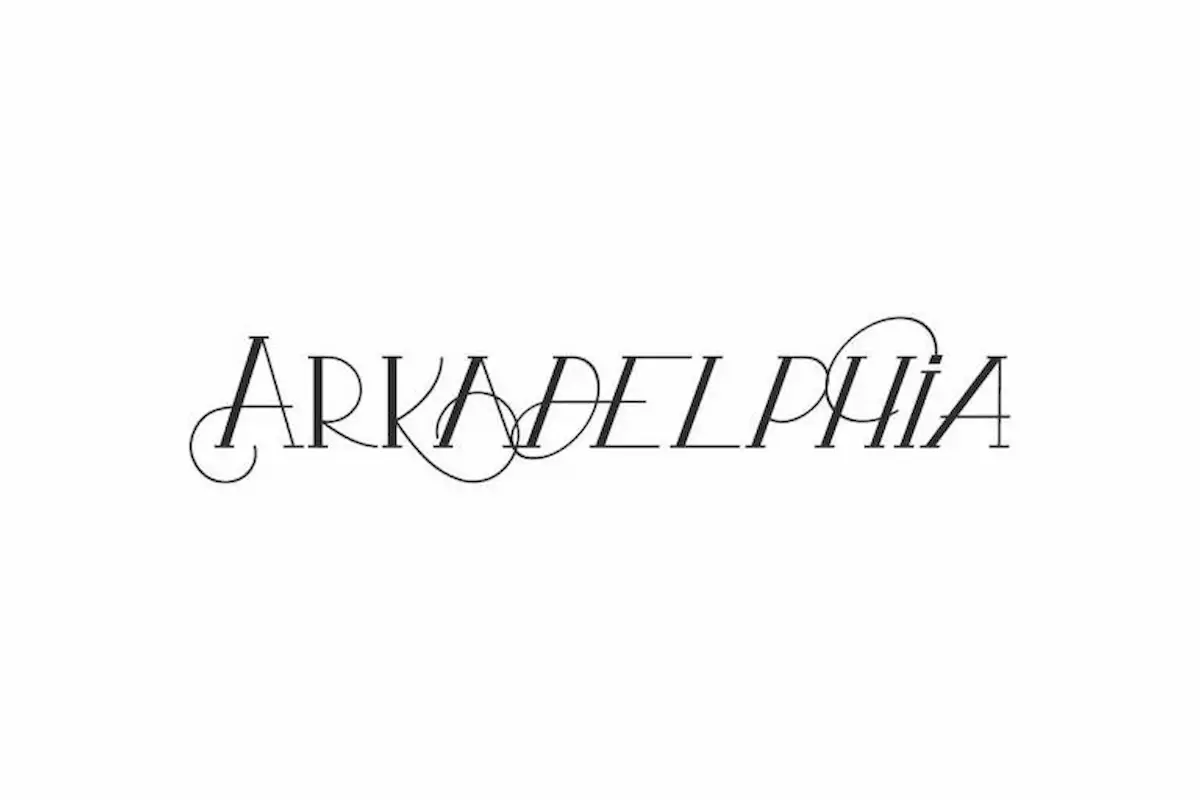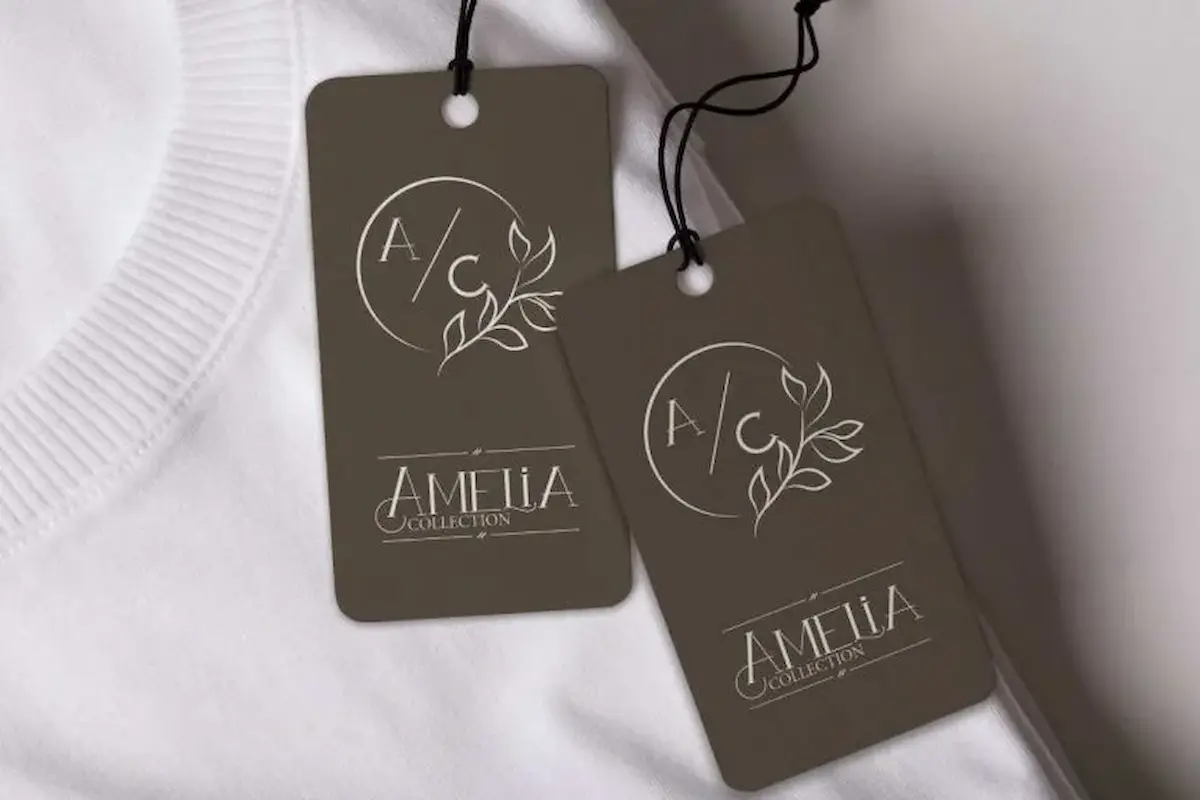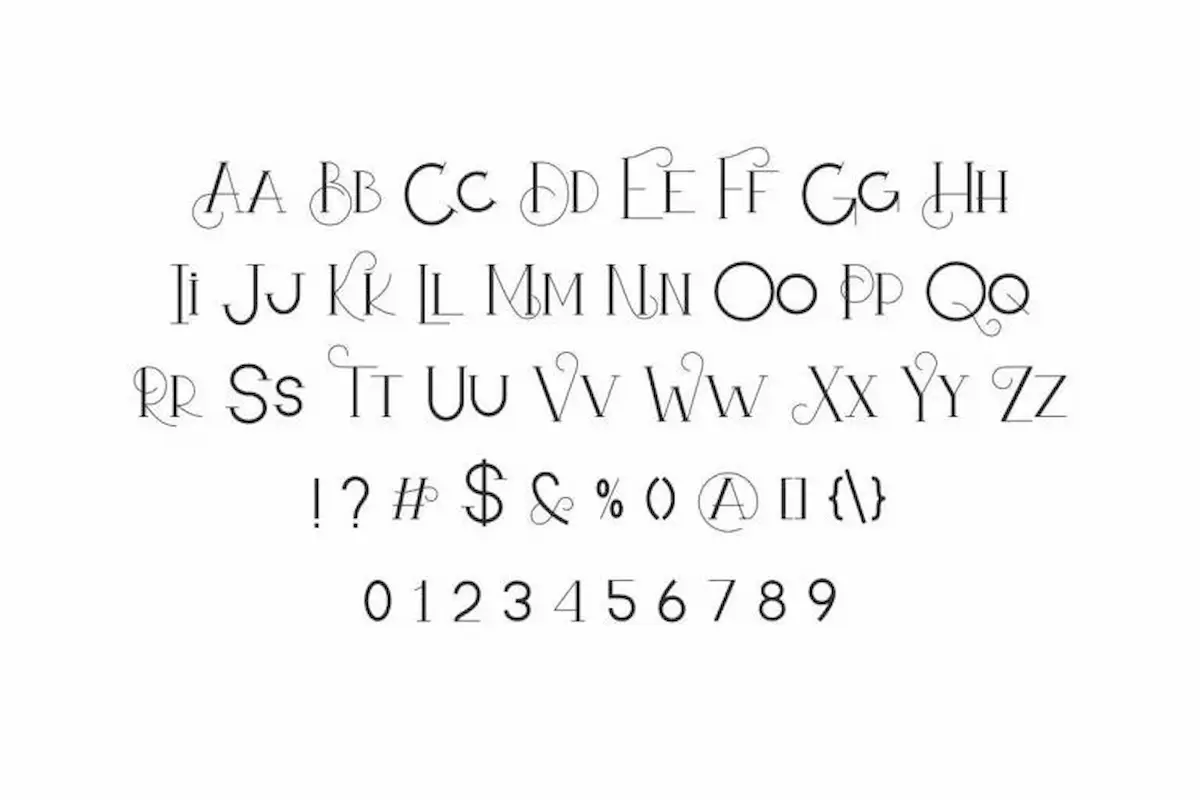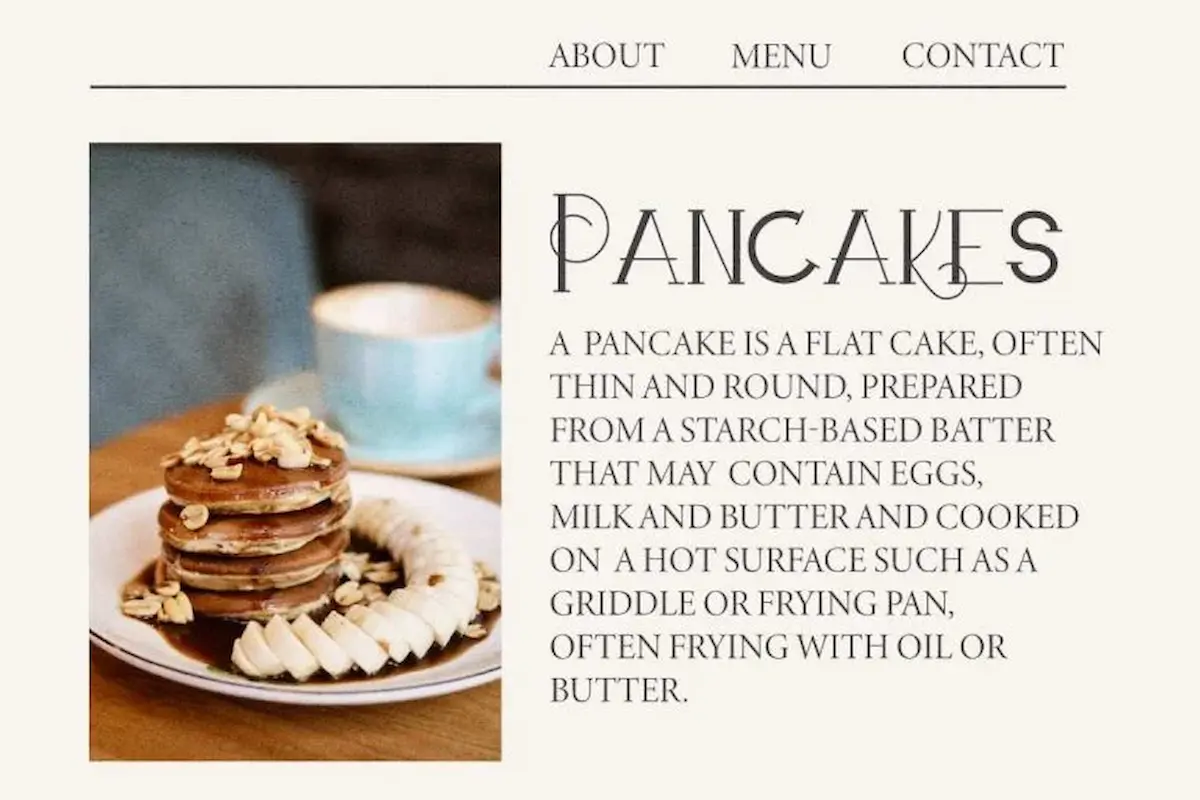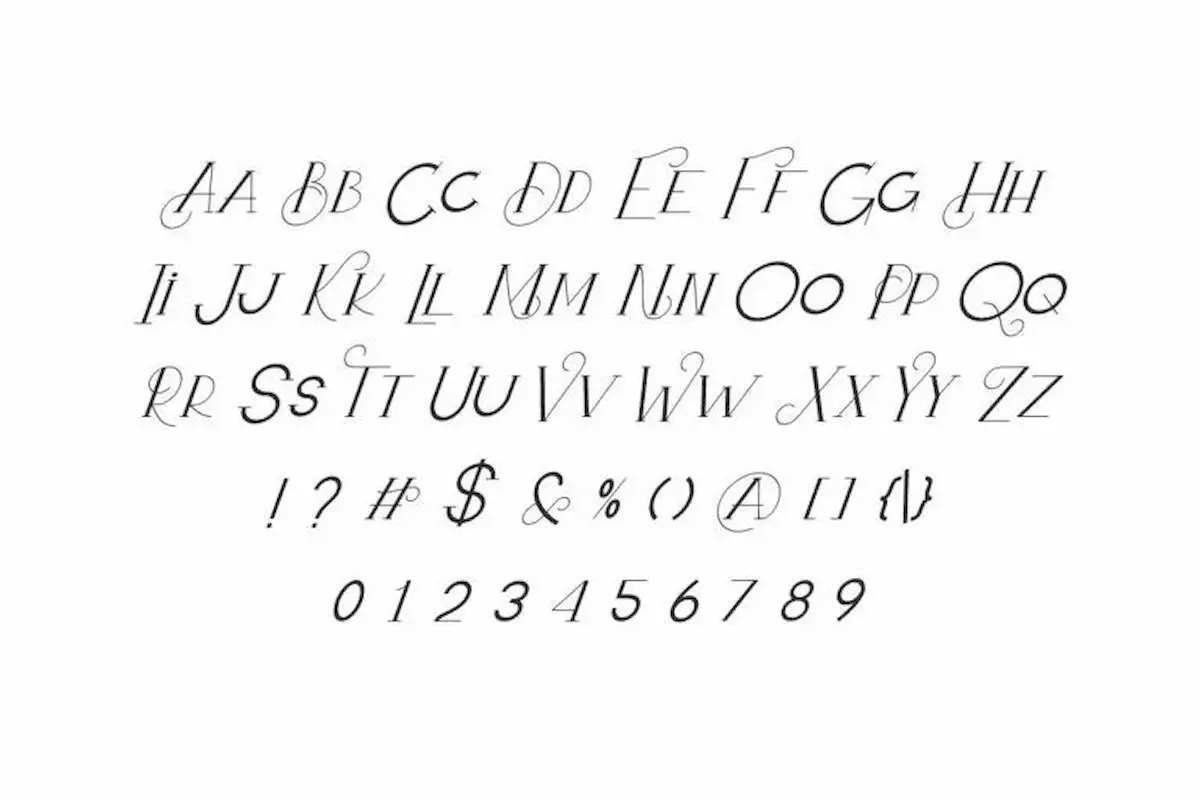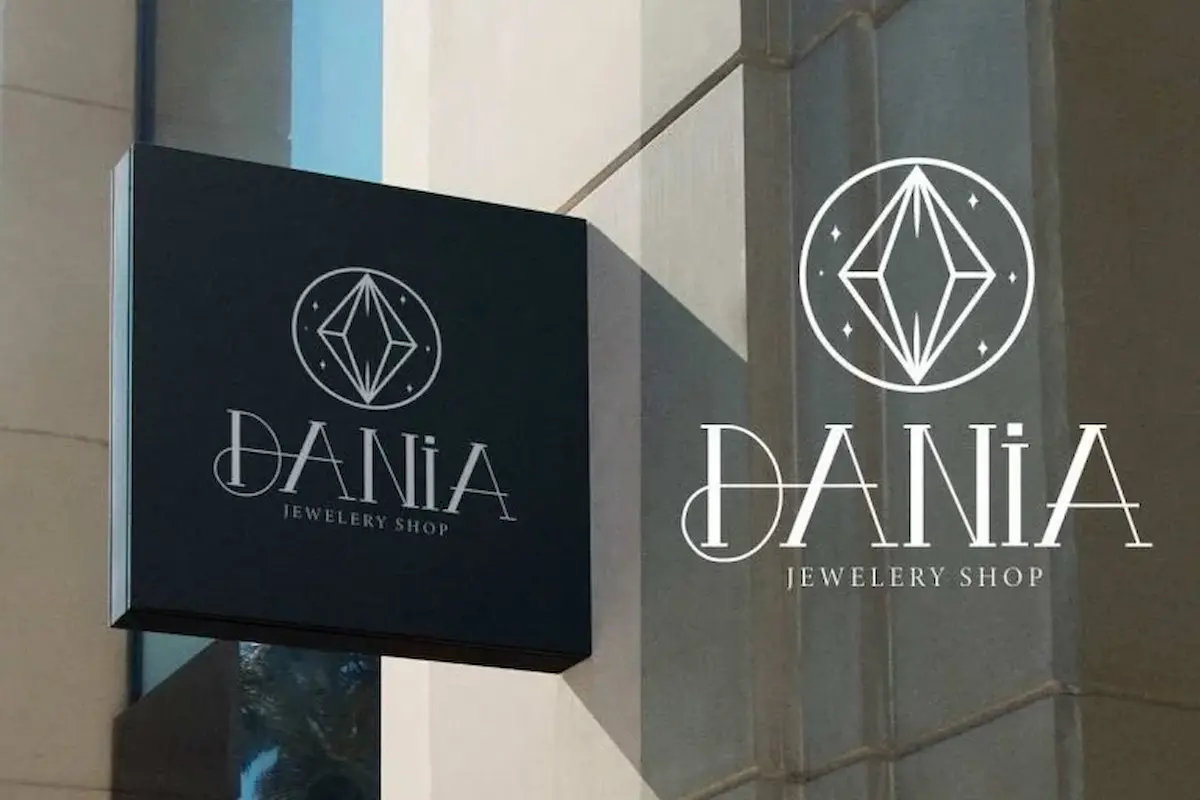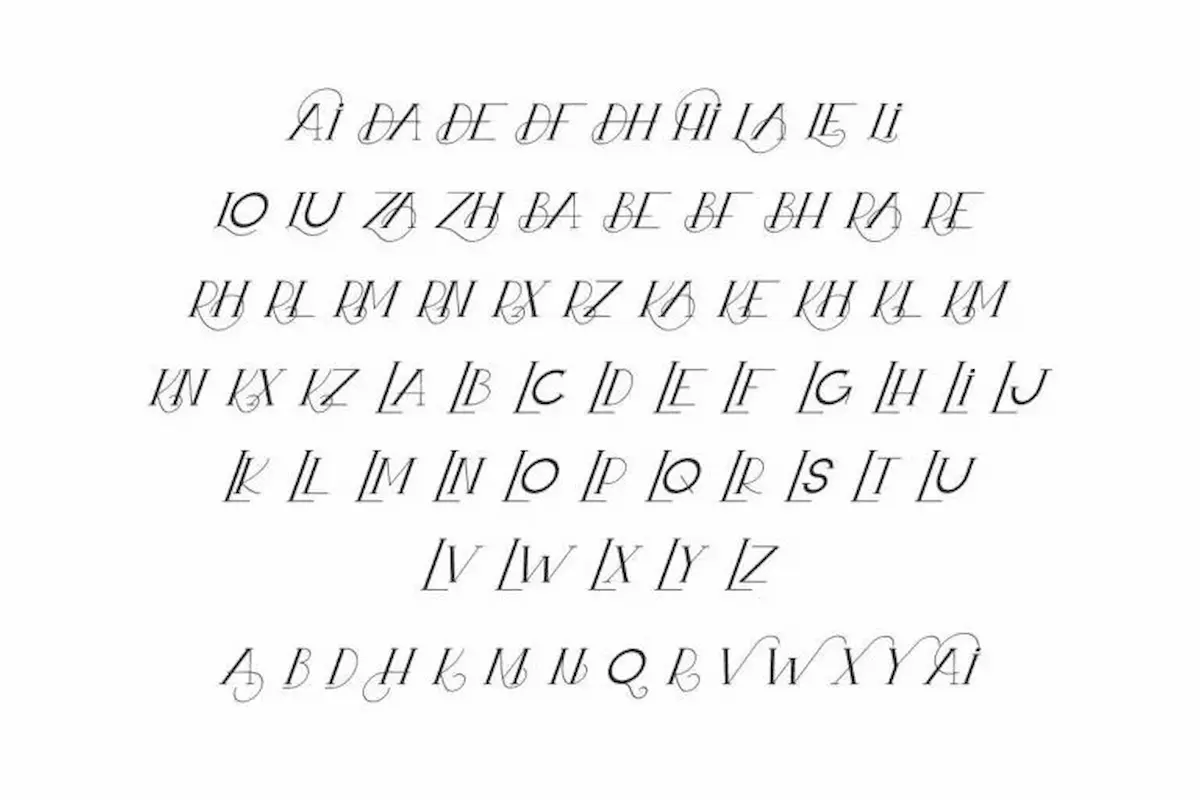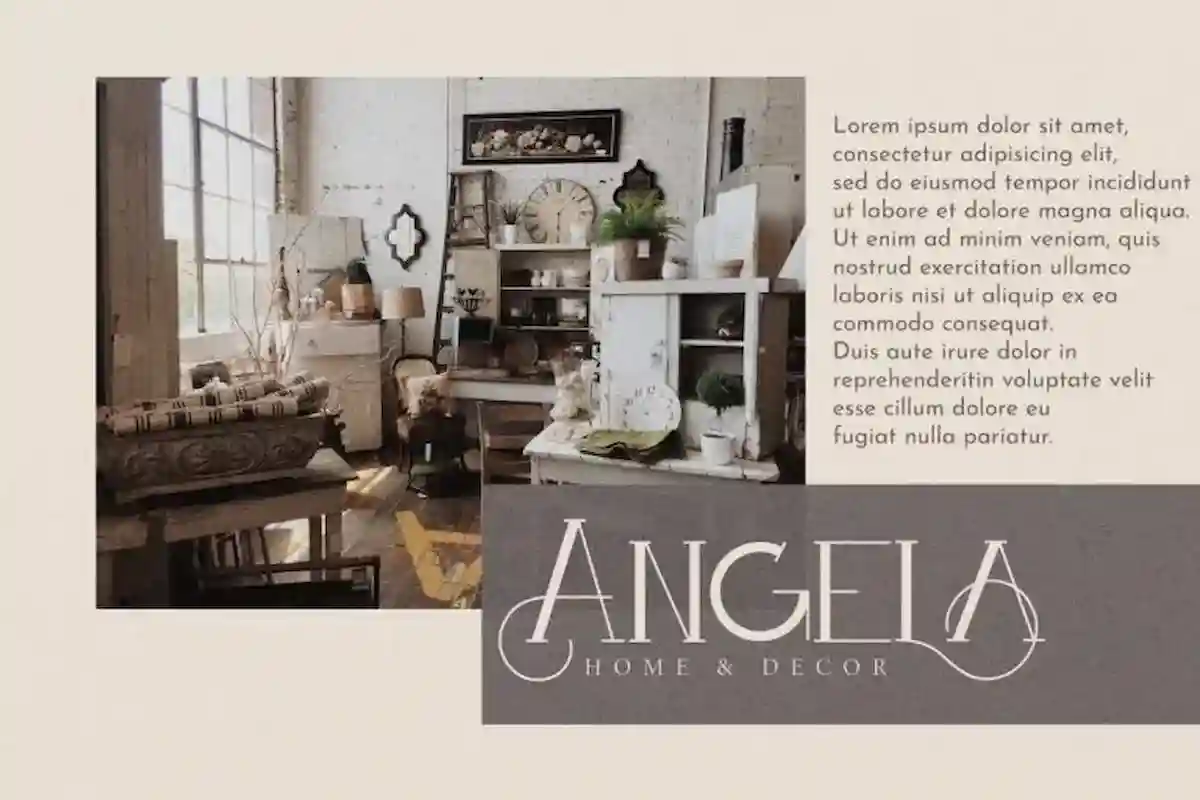
Arkadelphia Font is a stunning modern display font by NihStudio inspired from Artdeco era, made in 2021. Arkadelphia Stylish Font will great for many industries : magazine, fashion, cosmetic, wedding, florist, or vintage projects.
Arkadelphia Font has two style options : Regular and Italic. Handcrafted here in our Studio , Indonesia. Arkadelphia Modern Font will be great for any projects (require extended license) including : branding, logo, stationery, business card, signage, flyer, brochure etc. Arkadelphia Font comes with many alternative characters and ligatures to make it flowless and stunning. Arkadelphia Font will be great for many business and industries including cosmetic, beauty, education, wedding, finance, fashion, houseware etc